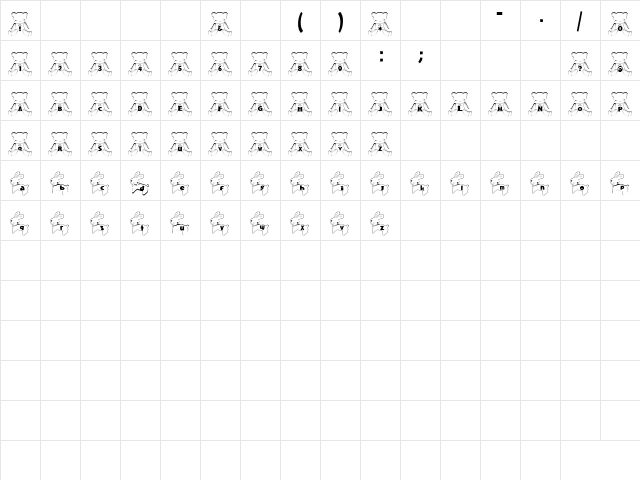
kumausa Font Regular
Design Context for kumausa Font Typeface
kumausa Font is a composed and adaptable typeface that performs quietly and consistently across a wide range of design contexts.